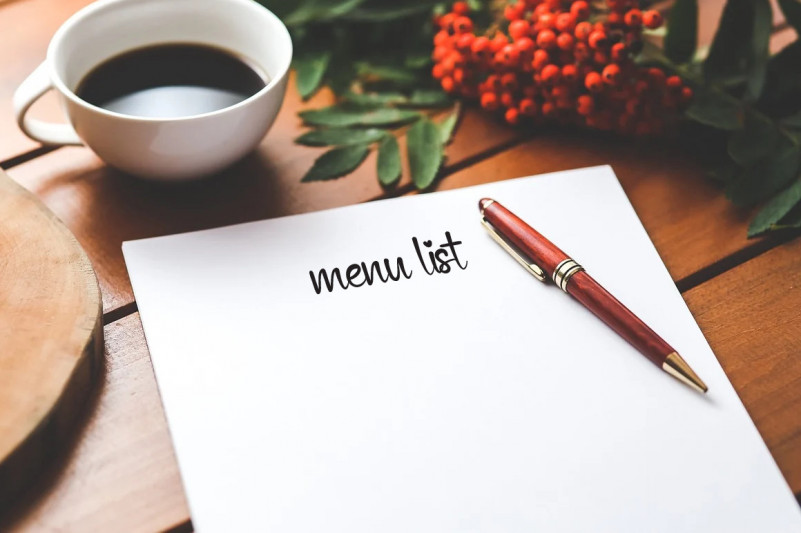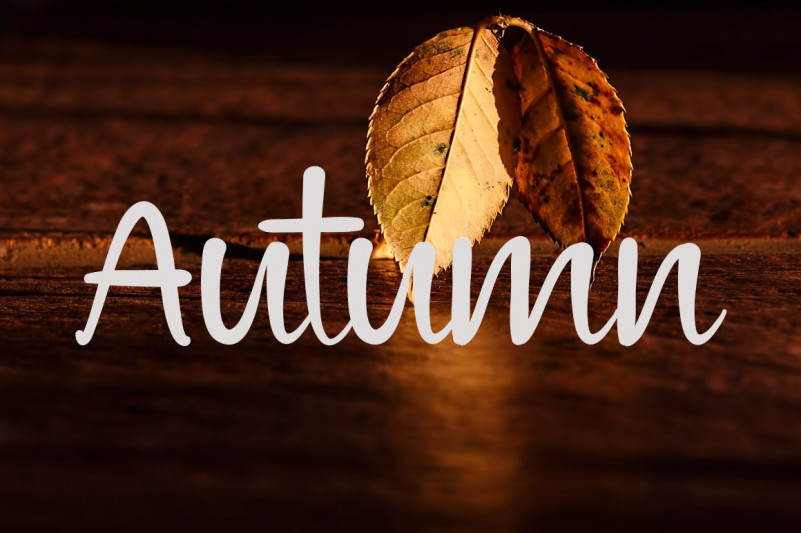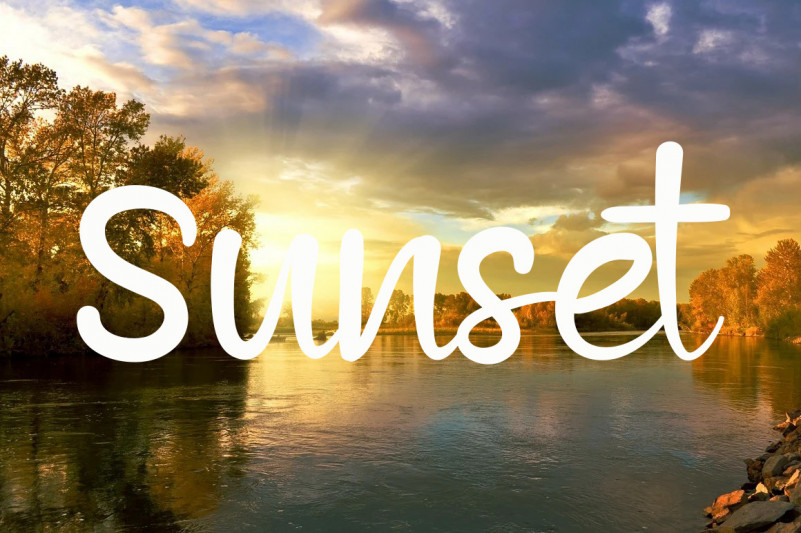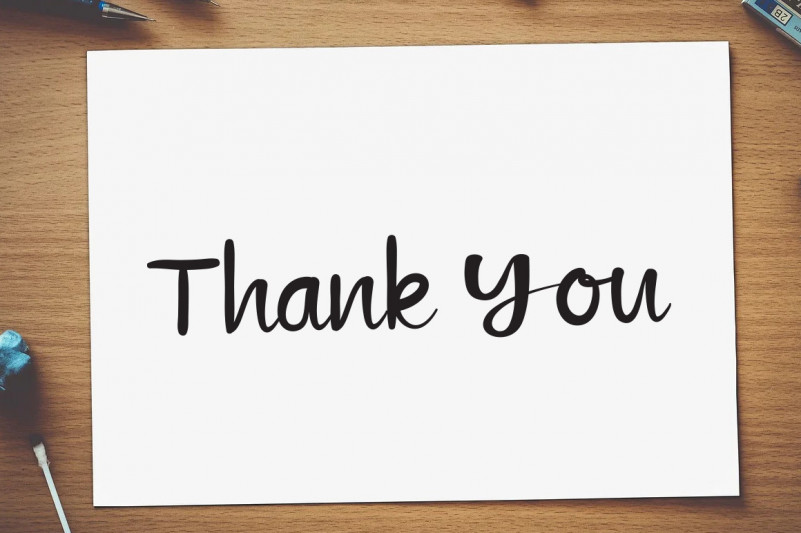
California Script Font
This is a dainty, genuine and cursive handwritten font. This gentle font will look gorgeous on a variety of design ideas. It will add a joyful and romantic touch to each of your projects!